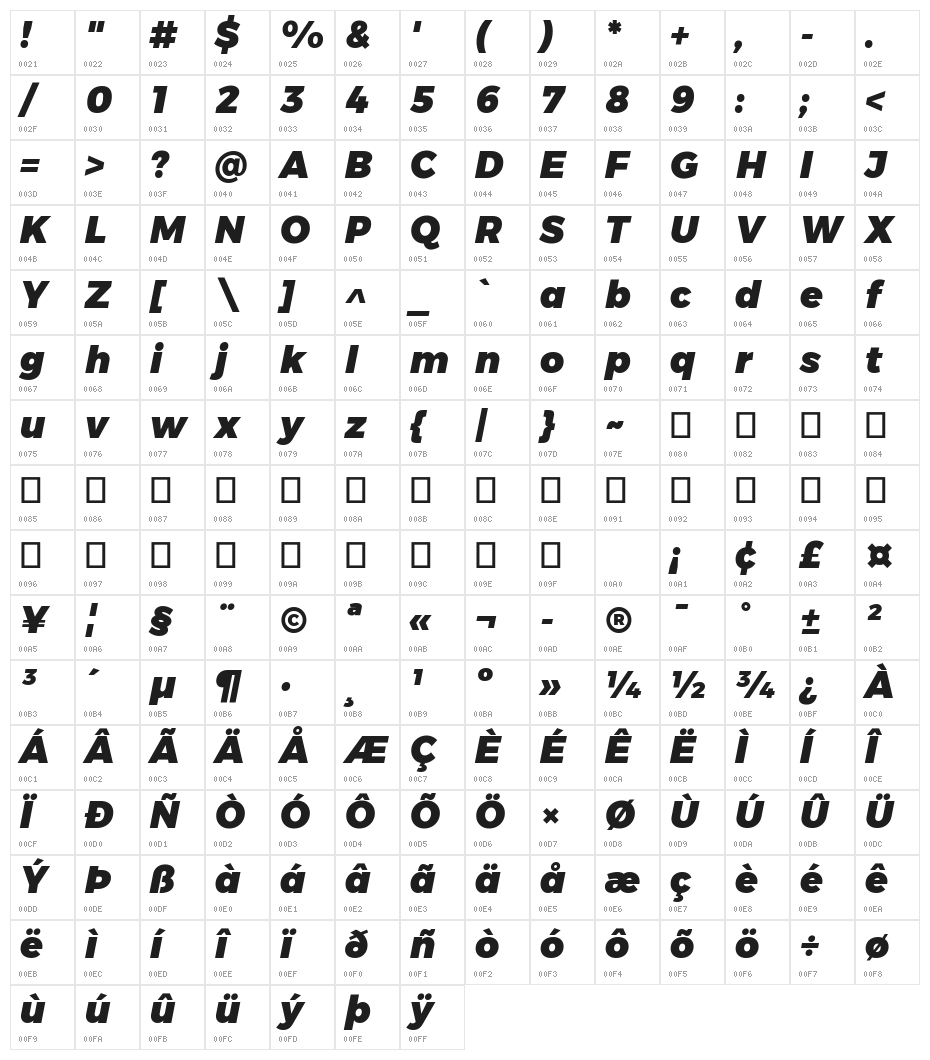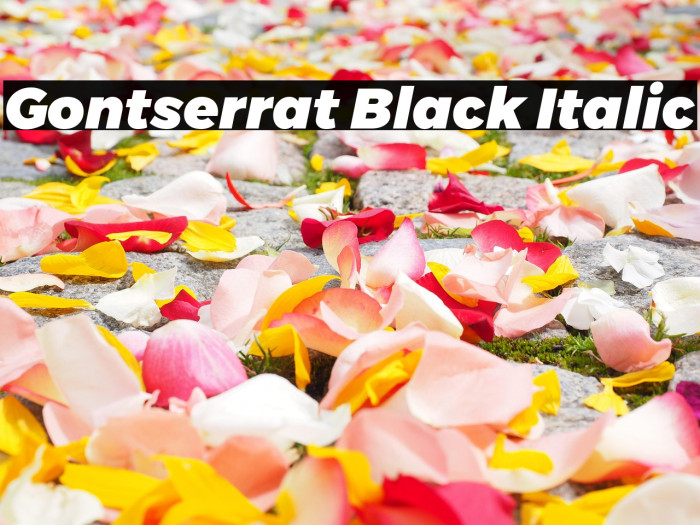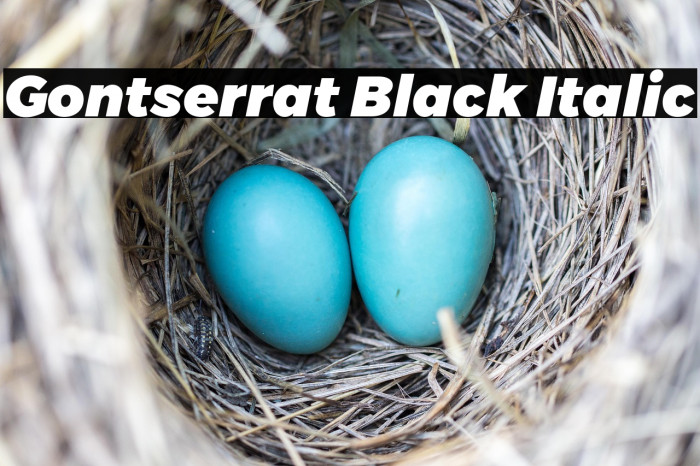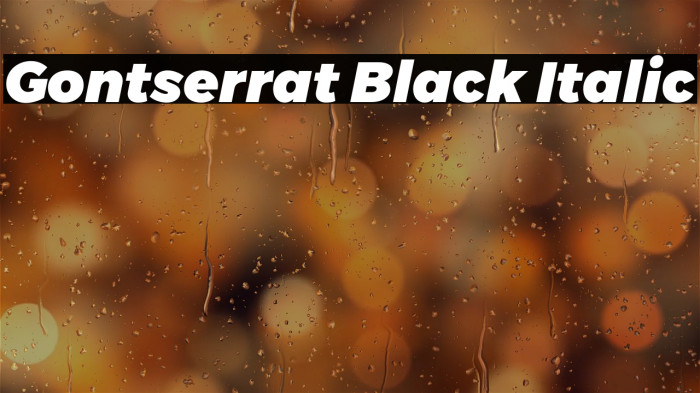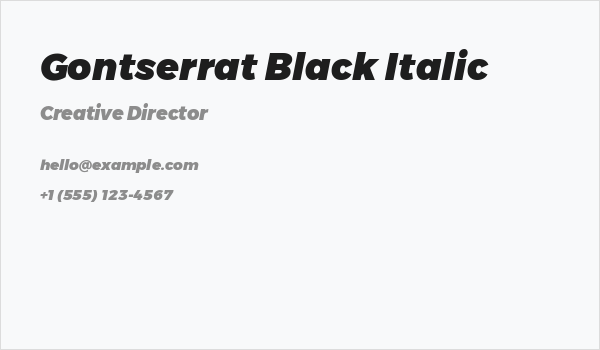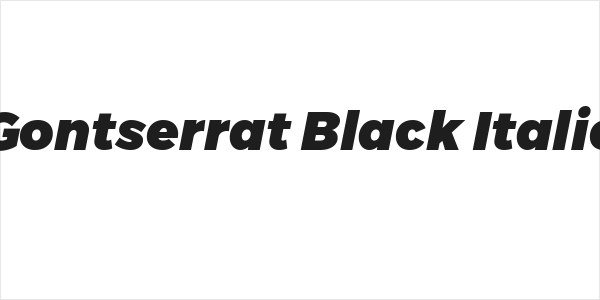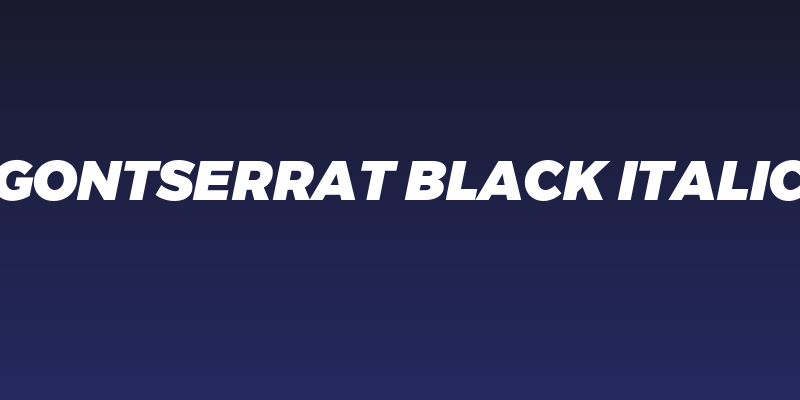
Gontserrat Black Italic Font
Gontserrat Black Italic Description
This font features a bold and italicized style with a strong presence. The letters are thick and slightly slanted, giving a dynamic and modern look. The uppercase and lowercase characters maintain a consistent weight, enhancing readability while adding a touch of elegance. The numerals are equally bold, ensuring they stand out in any design. Special characters are included, maintaining the same bold and italicized style, making this font versatile for various uses. Its clean lines and contemporary feel make it suitable for modern design projects.
Proposed ProjectsIdeal for branding, headlines, posters, and advertising materials.